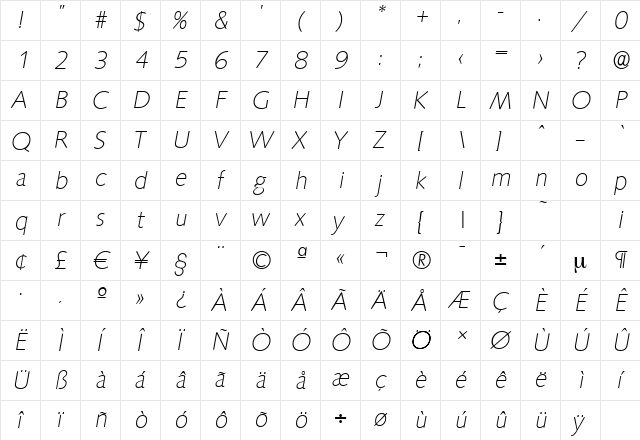
SaxonySerial-Xlight Italic Font Preview
Design Context for SaxonySerial-Xlight Typeface
SaxonySerial-Xlight offers clean, dependable letterforms without strong stylistic allegiance, making it a practical choice for designers who need flexibility. The slanted form adds forward momentum and visual energy. Its slender proportions lend an understated elegance to any composition.